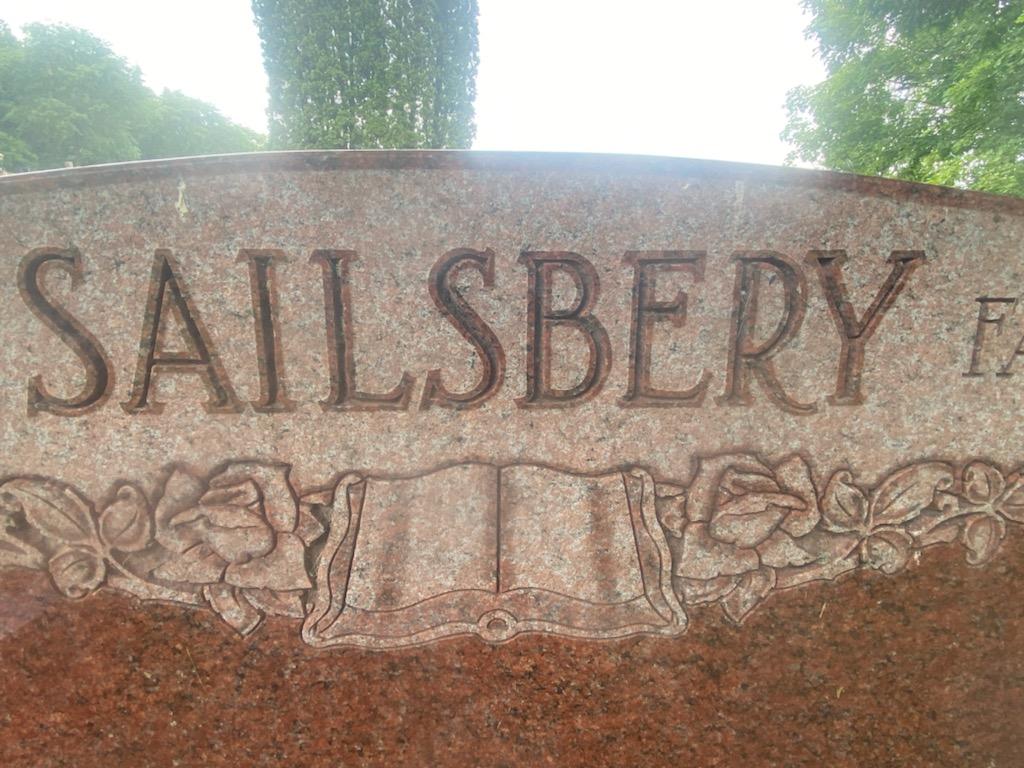
I dont need this in the polished outline form. I just need the name of the font.
This is likely hand-drawn lettering. It is similar to a custom font created by the Johns-Carabelli company named “Elongated Roman”.